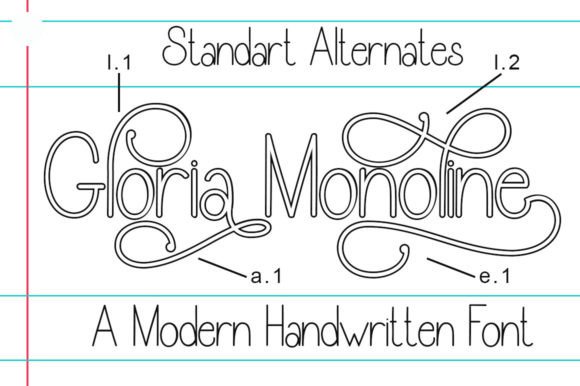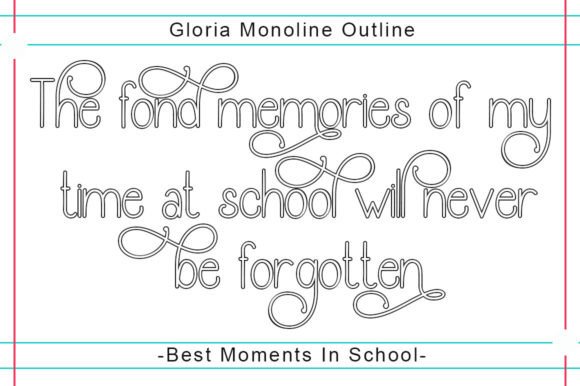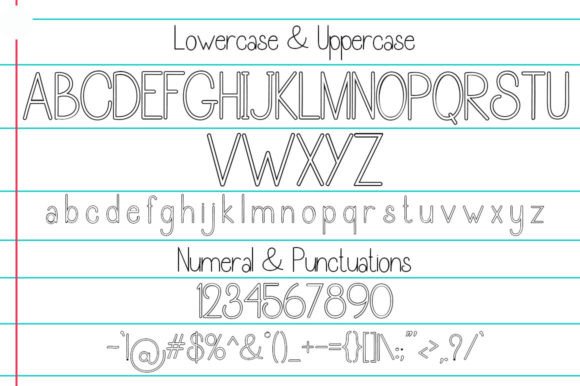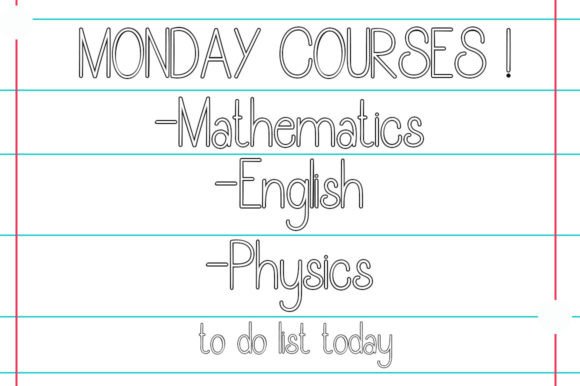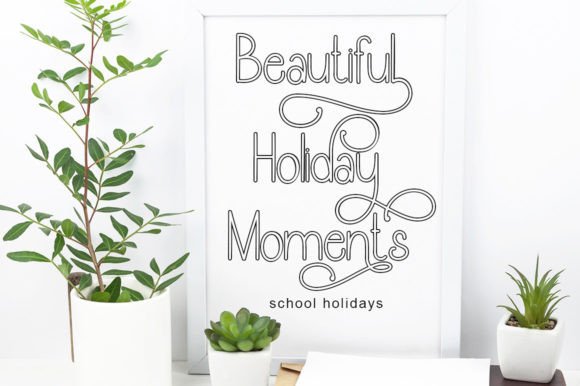
Introducing Gloria Monoline Outline Font: Elevate Your Handwritten Notes
Are you tired of using traditional fonts that lack personality and flair? Look no further than the Gloria Monoline Outline font, a stylish and versatile typeface that brings a touch of elegance to your handwritten notes. With its classic look and modern twist, this font is perfect for designers, crafters, and anyone looking to add a personal touch to their writing.
The Benefits of Gloria Monoline Outline Font
So, what makes Gloria Monoline Outline font so special? Here are just a few benefits that set it apart from other fonts:
- Beautiful and Legible: The Gloria Monoline Outline font is designed to be both beautiful and easy to read. Its monoline style ensures that every letter is consistent and clear, making it perfect for note-taking and writing.
- Classic Handwritten Look: With its elegant lines and refined features, this font gives you the option to write with a classic handwritten look that’s perfect for any occasion.
- Versatile: Whether you’re using a note-taking app or writing on your computer, the Gloria Monoline Outline font is the perfect choice. Its versatility ensures that it looks great in any context.
Why Designers and Crafters Love Gloria Monoline Outline Font
Designers and crafters are always on the lookout for unique and stylish fonts to add to their repertoire. The Gloria Monoline Outline font is a game-changer for several reasons:
- Unique Style: The monoline outline style of this font is both modern and sophisticated, making it perfect for designers and crafters looking to add a touch of elegance to their work.
- Easy to Pair: The Gloria Monoline Outline font pairs well with a variety of other fonts, making it easy to mix and match to create a unique look.
- High-Quality: With its high-quality design and attention to detail, this font is sure to impress even the most discerning designers and crafters.
How to Use Gloria Monoline Outline Font
Using the Gloria Monoline Outline font is easy. Here are a few tips to get you started:
- Experiment and Have Fun: Don’t be afraid to experiment with different font sizes, colors, and pairings to create a look that’s all your own.
| Font Name | Gloria Monoline Outline Font |
| Author | IM Studio |
- What is the Gloria Monoline Outline font? The Gloria Monoline Outline font is a stylish and versatile typeface designed for handwritten notes and writing.
- Is the Gloria Monoline Outline font easy to read? Yes, the Gloria Monoline Outline font is designed to be both beautiful and easy to read.